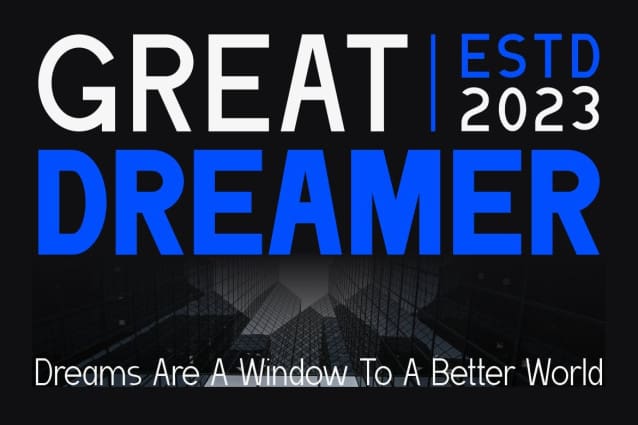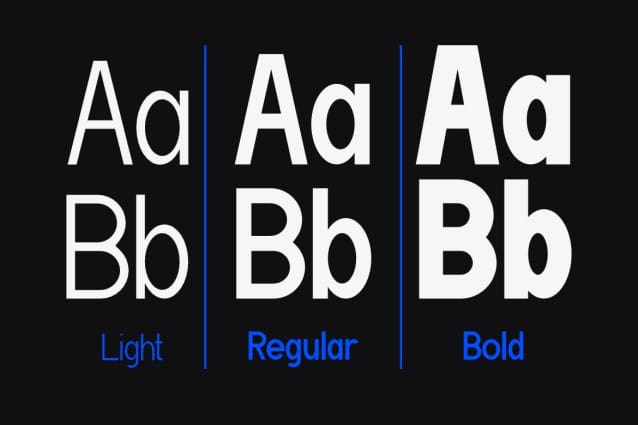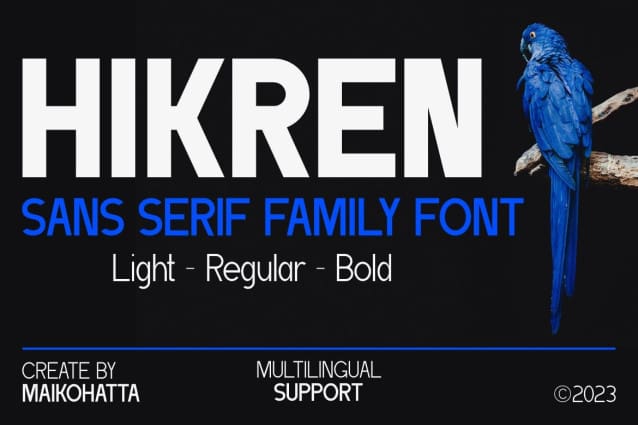
Hikren Font
Hikren Font Family a Sans-Serif font family available in different styles is a very versatile choice for graphic design and displaying clean, modern text. This Sans-Serif font family offers flexibility in graphic design, and its different styles allow you to customize the appearance of the text according to the needs of your project. With different combinations of regular, light and variable boldness levels, you can create an attractive and easily readable text display in different contexts